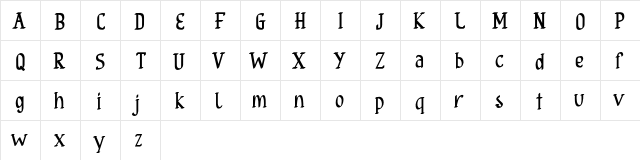
Olios FREE Regular
Design Context for Olios FREE Typeface
Olios FREE offers clean, dependable letterforms without strong stylistic allegiance, making it a practical choice for designers who need flexibility.